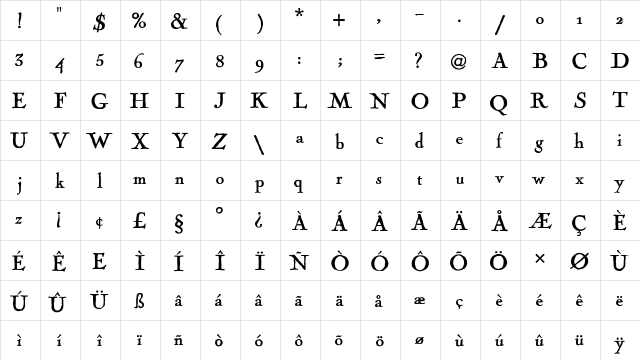
Fogle Hunter Regular
| Foundry | HENRIavecunK |
| Designer | HENRIavecunK |
Design Context for Fogle Hunter Typeface
Fogle Hunter offers clean, dependable letterforms without strong stylistic allegiance, making it a practical choice for designers who need flexibility.